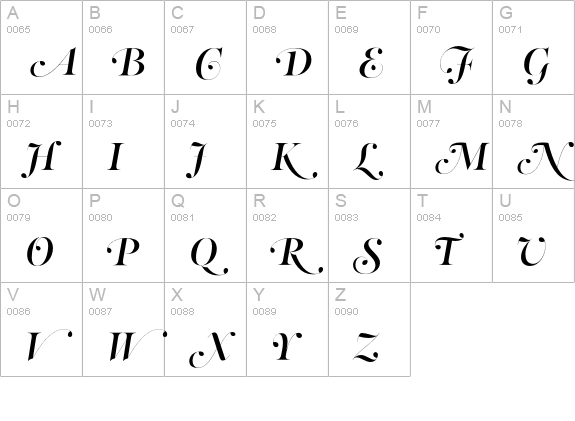
PFRegalSwashPro-Medium is a balanced, medium-weight variant in the PFRegalSwashPro typeface family \xE2\x80\x94 well suited to sub-headlines, navigation, and balanced editorial work.
PFRegalSwashPro-Medium is a sophisticated and elegant font that exudes a sense of refinement and luxury. Its intricate swashes and graceful curves make it perfect for adding a touch of class to any design project. Whether you're creating wedding invitations, branding materials, or elegant packaging, this font is sure to make a lasting impression. And the best part? PFRegalSwashPro-Medium is available for free download at FontsMarket.com. Now you can access this premium font without breaking the bank. Don't miss out on the opportunity to elevate your designs with the timeless beauty of PFRegalSwashPro-Medium. Download it today and add a touch of sophistication to your projects.